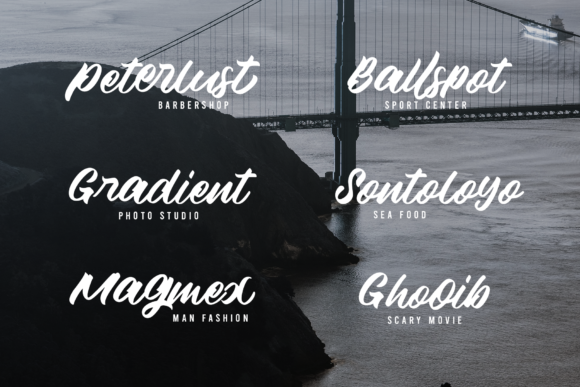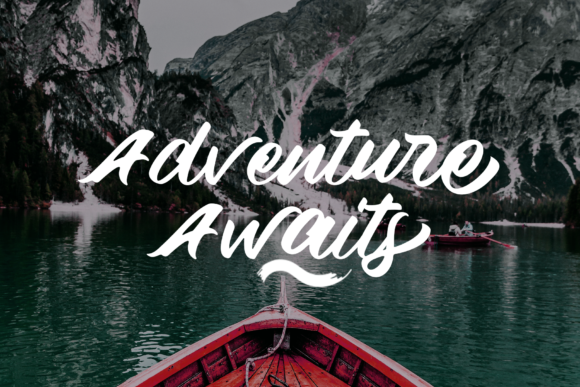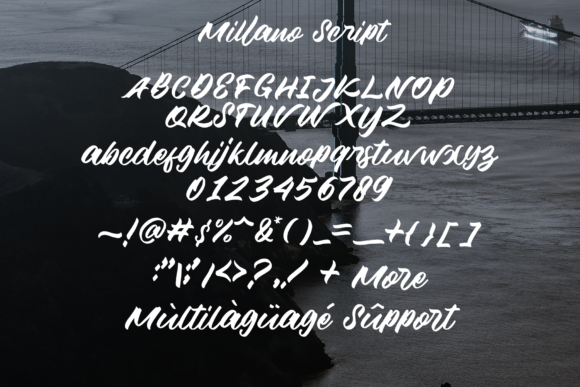
Introduction to Millano Script Font
Millano Script is a beautiful, distinct and flowing handwritten font.
| 👤 Author | MJB Letters |
Remarkable and bold, this font will turn each of your designs into a true piece of art .
Key Features of Millano Script Font
Why Choose Millano Script Font?
Millano Script Font offers exceptional quality and versatility, making it a valuable addition to your design toolkit. Whether you’re creating for personal projects or commercial use, Millano Script Font delivers professional results.